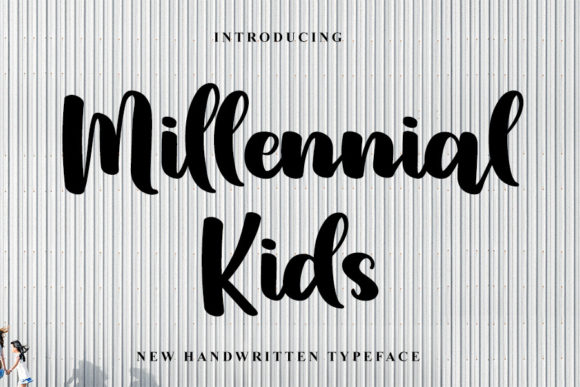
Journey into the realm of exquisite typography with Millennial Kids Font, a script font family that captures the essence of charm and sophistication. Created by the ingenious minds at Kongsi.Co, this font is a symphony of flowing lines and graceful curves, ready to elevate your designs to new heights.
Millennial Kids Font is not just a collection of letters; it's an expression of art, a canvas for your creativity. Its delicate strokes and elegant loops evoke a sense of timeless beauty, adding a touch of refinement to any project you undertake. Whether you're crafting product packaging, embarking on a branding endeavor, designing magazine covers, or captivating your audience on social media, Millennial Kids Font is your perfect companion.
With its inherent versatility, Millennial Kids Font effortlessly adapts to a myriad of styles, from the classic and traditional to the contemporary and modern. Its timeless appeal ensures that your designs will stand the test of time, remaining relevant and captivating for years to come. Embrace the endless possibilities and let your imagination soar as you explore the depths of this remarkable font.
Millennial Kids Font is more than just a font; it's an experience. Its meticulously crafted characters evoke a sense of nostalgia, reminiscent of handwritten letters that convey warmth and sincerity. Use it to create wedding invitations that exude romance, design posters that capture the essence of an era, or simply express your heartfelt thoughts and emotions in a way that resonates with your audience.
As you delve into the world of Millennial Kids Font, you'll discover a treasure trove of creative possibilities. Its smooth, flowing lines lend themselves perfectly to logos and branding projects, creating a lasting impression that sets your business apart. Unleash your creativity and craft designs that exude professionalism and sophistication, leaving an indelible mark on your clients' minds.
Millennial Kids Font is not just a font; it's an investment in your creative arsenal. Its timeless beauty and versatility make it an indispensable tool for any designer, marketer, or entrepreneur seeking to create designs that captivate and inspire. Embrace the power of Millennial Kids Font and unlock a world of endless creative possibilities.